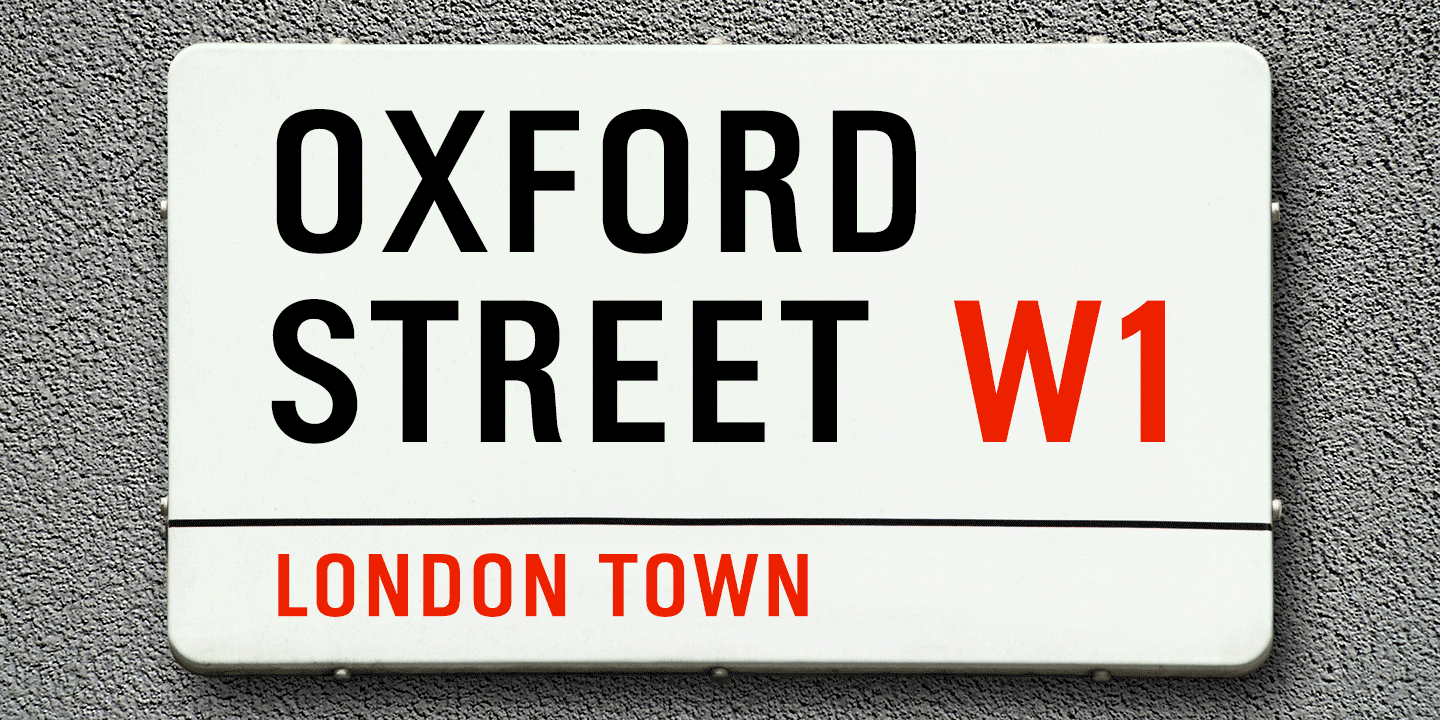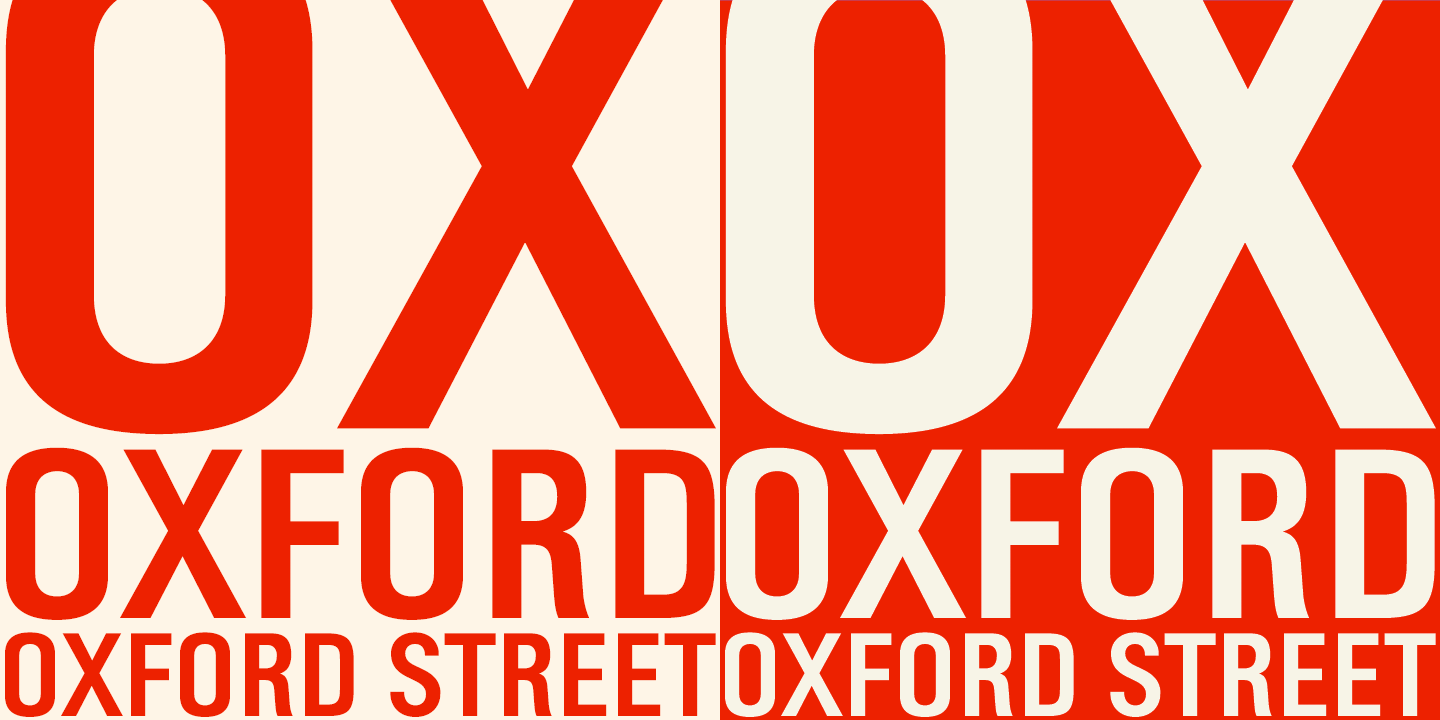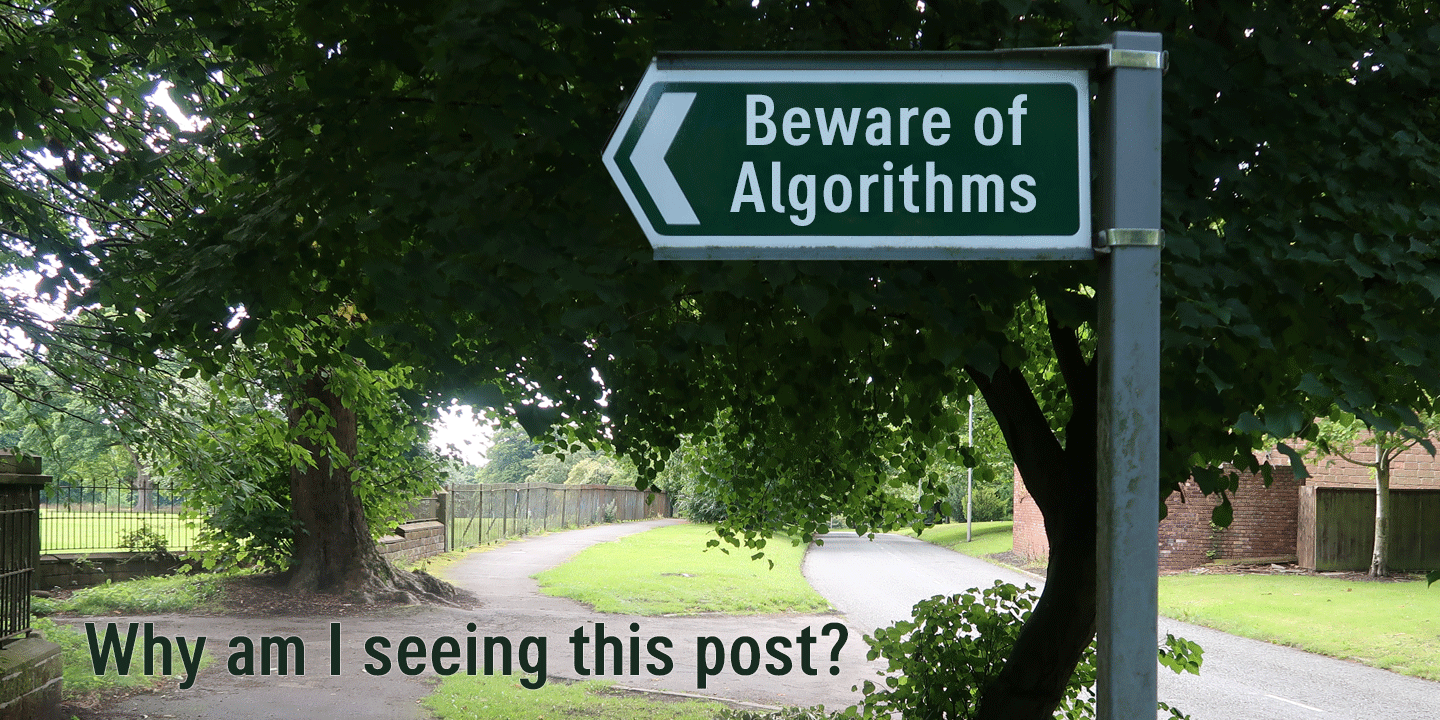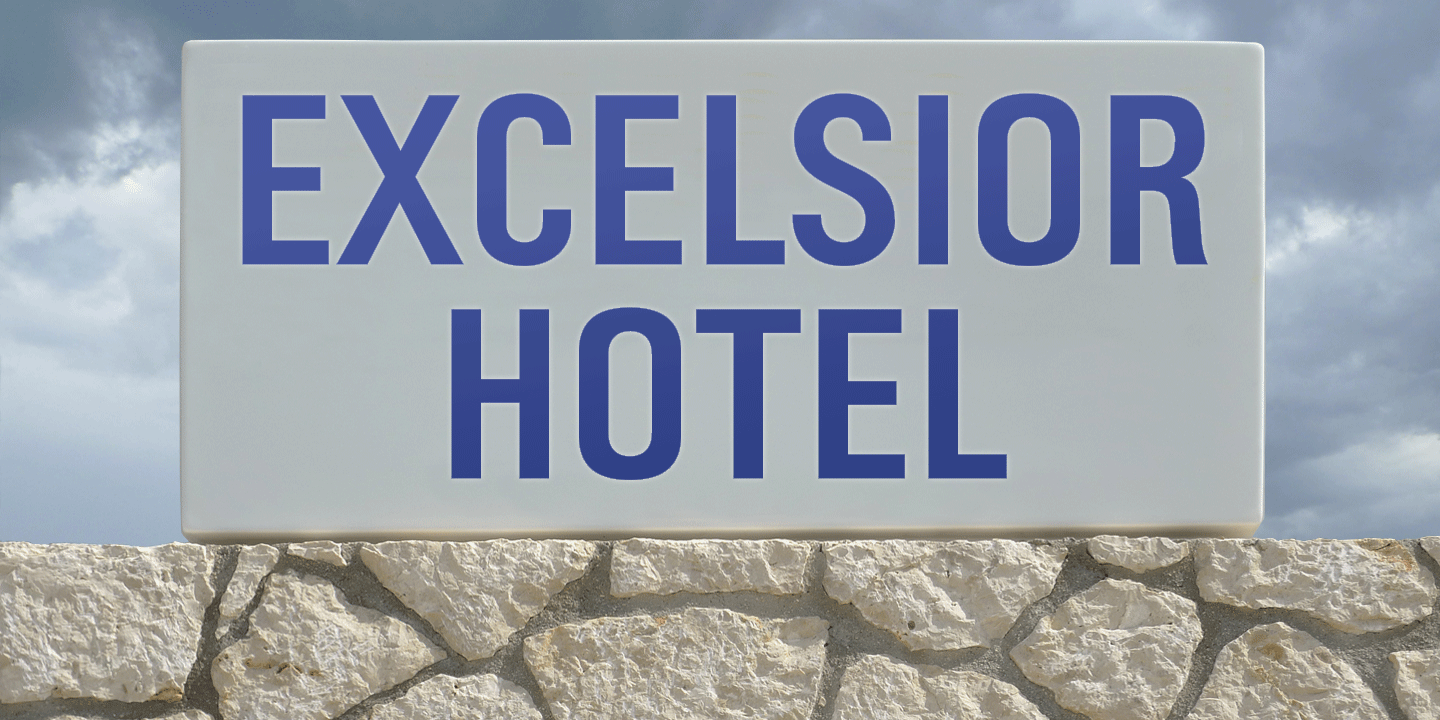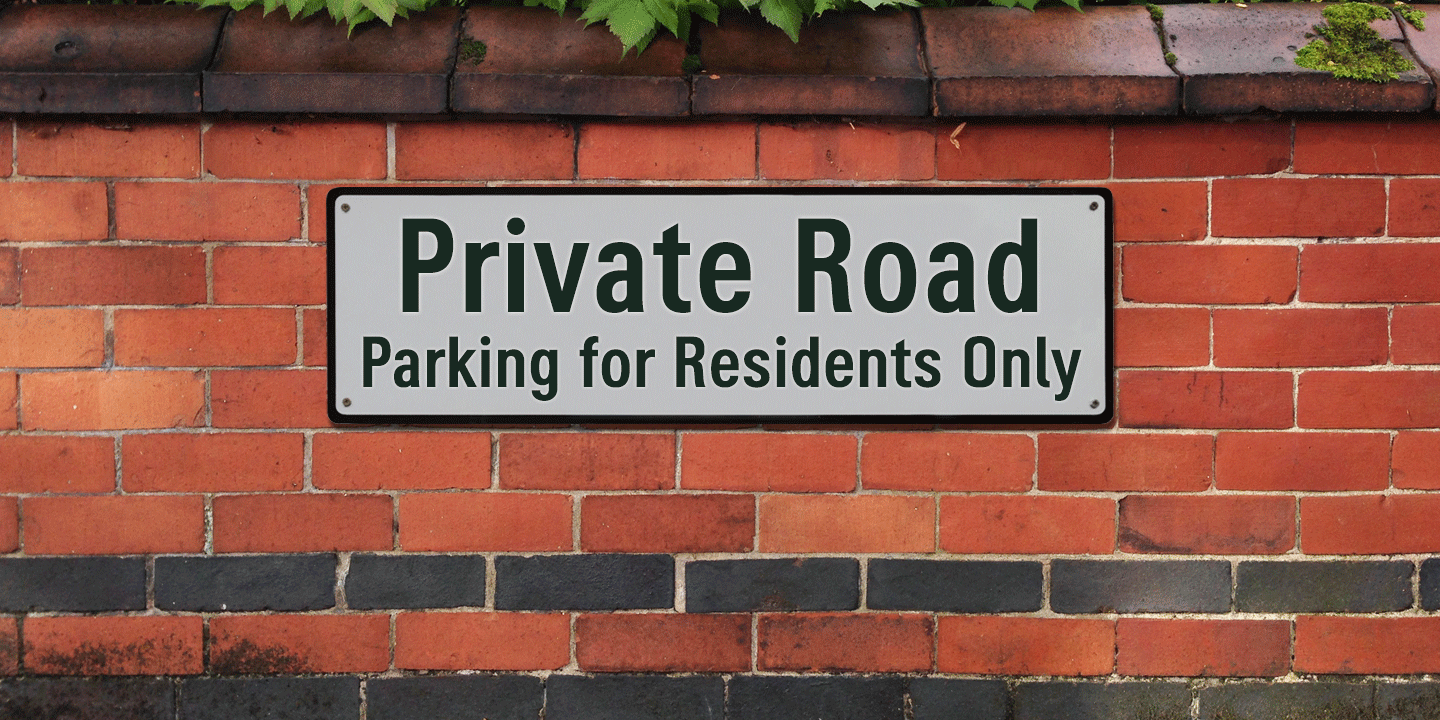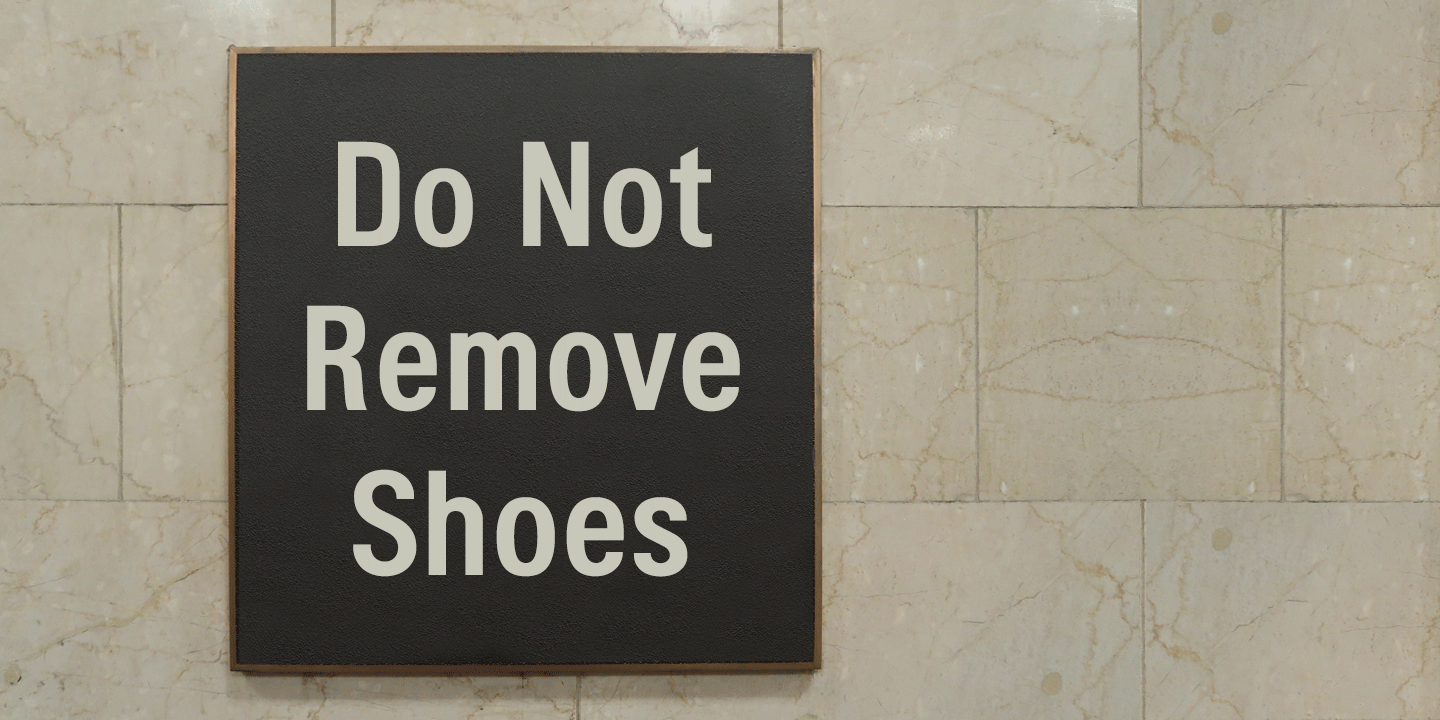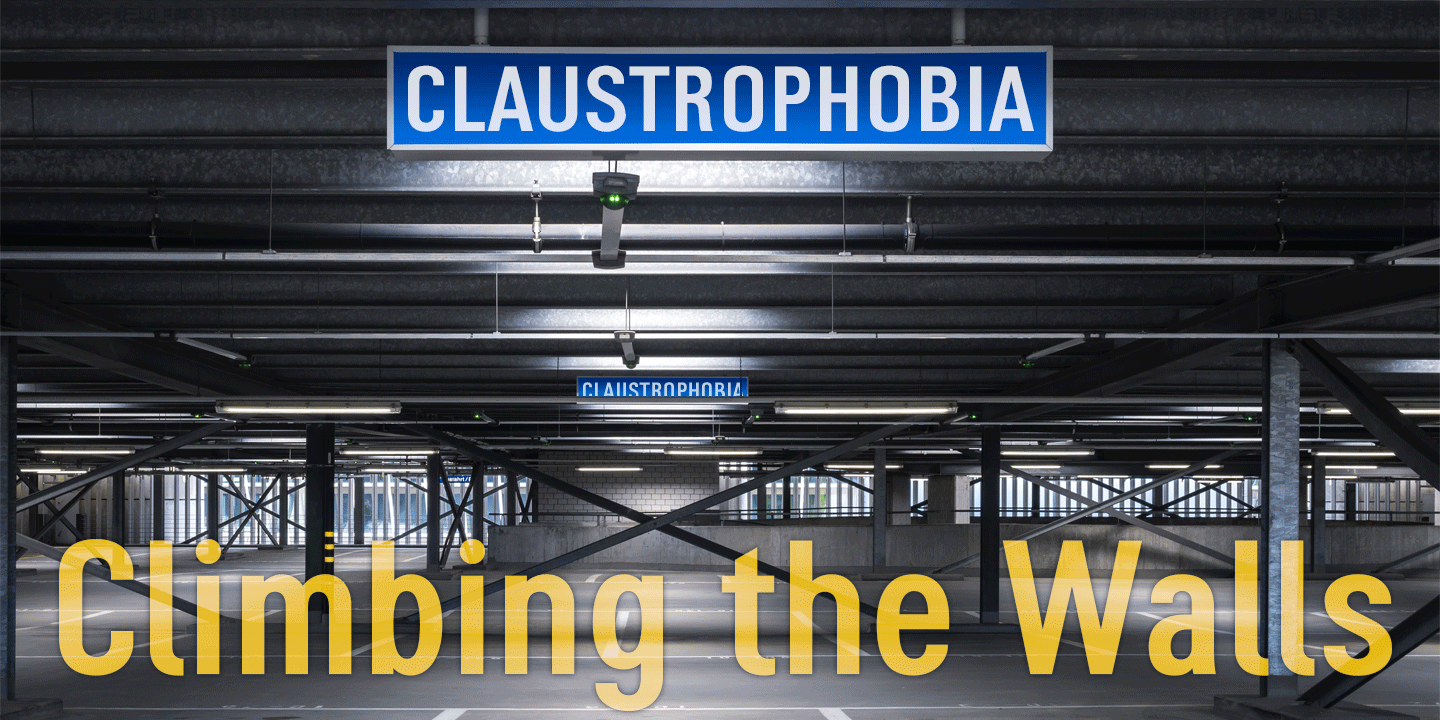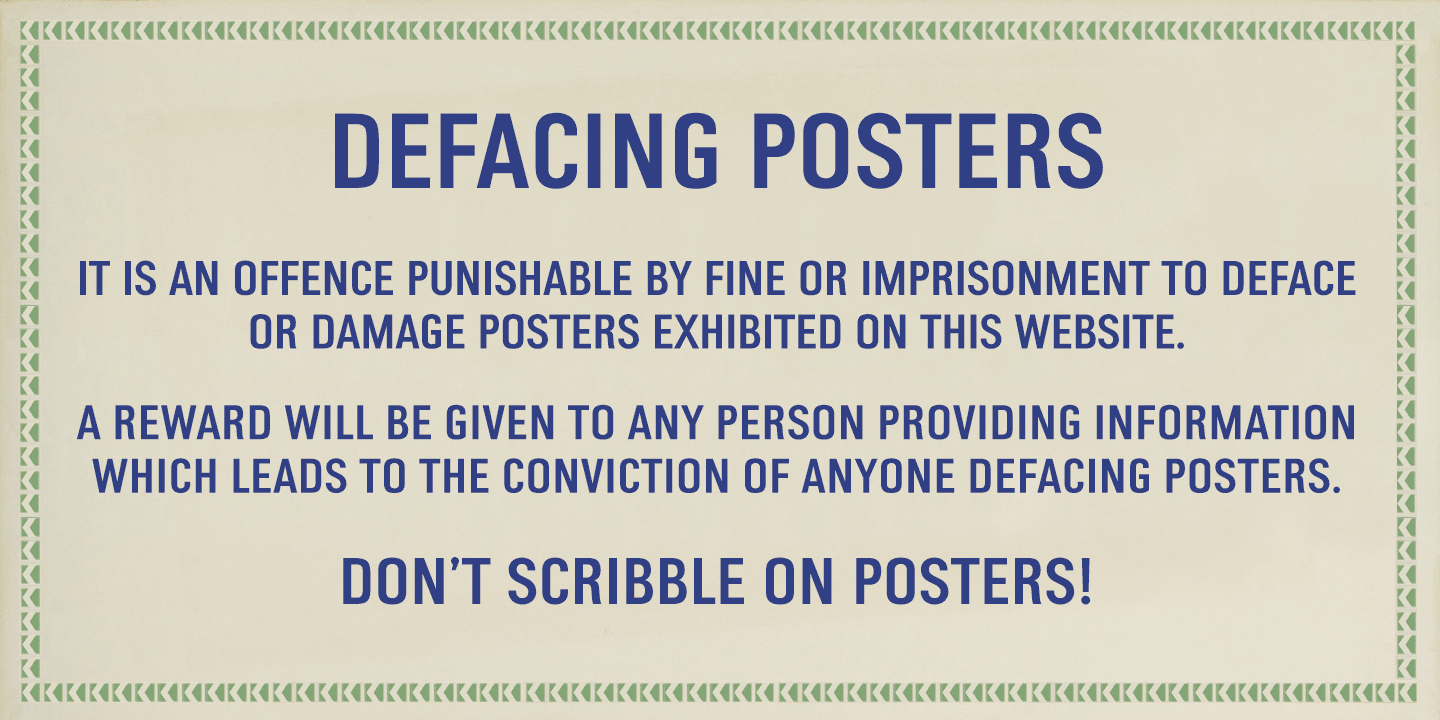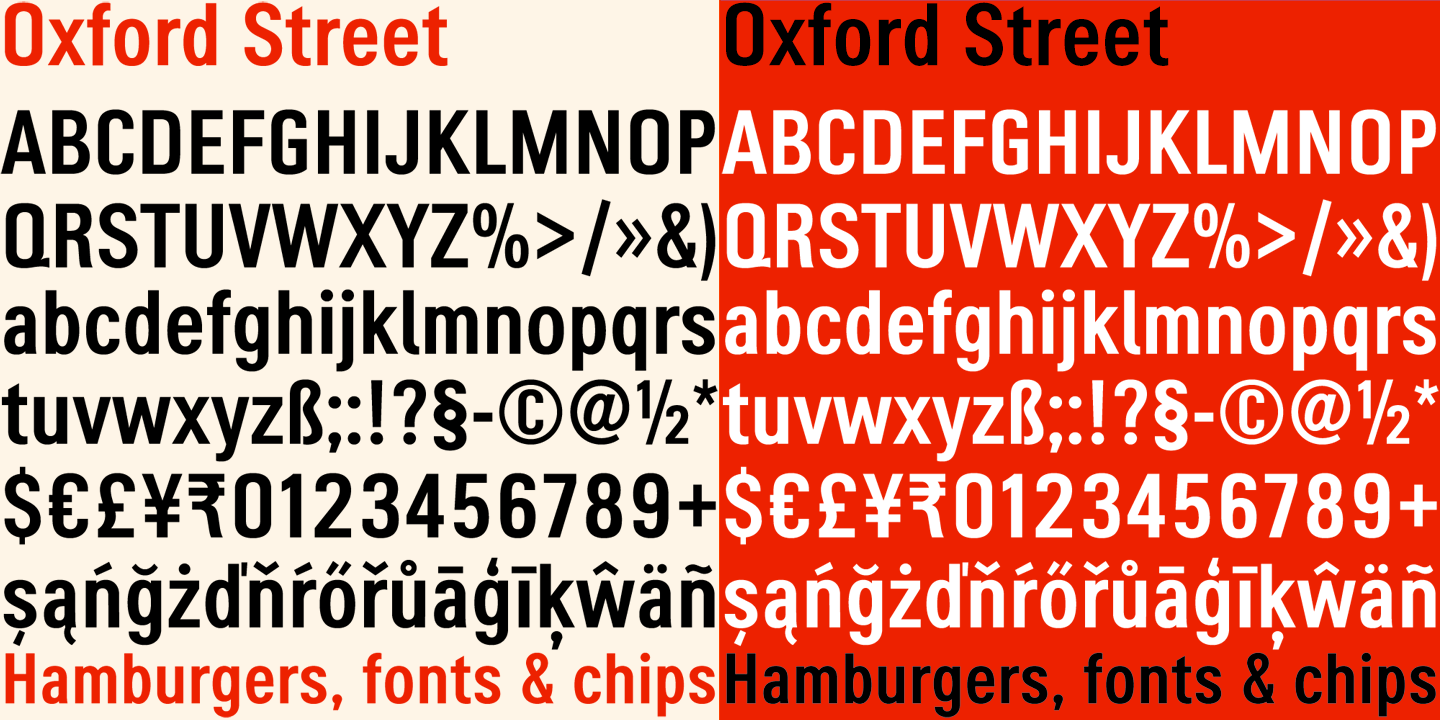
Oxford Street
Oxford Street is a signage font that began as a redrawing of the capital letters used for street nameplates in the borough of Westminster in Central London.
The nameplates were designed in 1967 by the Design Research Unit using custom lettering based on Adrian Frutiger's Univers typeface, a curious combination of Univers 69 Bold Ultra Condensed, a weight that doesn't seem to exist but which would flatten the long curves of glyphs such as O, C and D, and Universe 67 Bold Condensed with its more rounded lobes on glyphs like B, P and R.
Letters were then remodelled to improve their use on street signs. Thin strokes like the inner diagonals of M and N were thickened to create a more monolinear alphabet; the high interior apexes were lowered and the wide joins thinned. The crossbar of the A was lowered, the K was made double junction, and the tail of the Q was given a baseline curve. K-Type Oxford Street continues the process of impertinent improvement and includes myriad minor adjustments and several more conspicuous amendments. The stroke junctions of M and N are further narrowed and their interior apexes modified. The middle apex of the W is narrowed and the glyph is a little more condensed. The C and S are drawn more open, terminals slightly shortened.
The K-Type font adds a new lowercase which is also made more monolinear so better suited to signage, loosely based on Univers but also taking inspiration from the Transport typeface both in a taller x-height and character formation. The lowercase L has a curled foot, the k is double junctioned to match the uppercase, and terminals of a, c, e, g and s are drawn shorter for openness and clarity.
A full repertoire of Latin Extended-A characters features low-rise diacritics that keep congestion to a minimum in multiple lines of text.
The font tips the hat to signage history by including stylistic alternates for M, W and w that have the pointed middles of the earlier MOT street sign typeface.